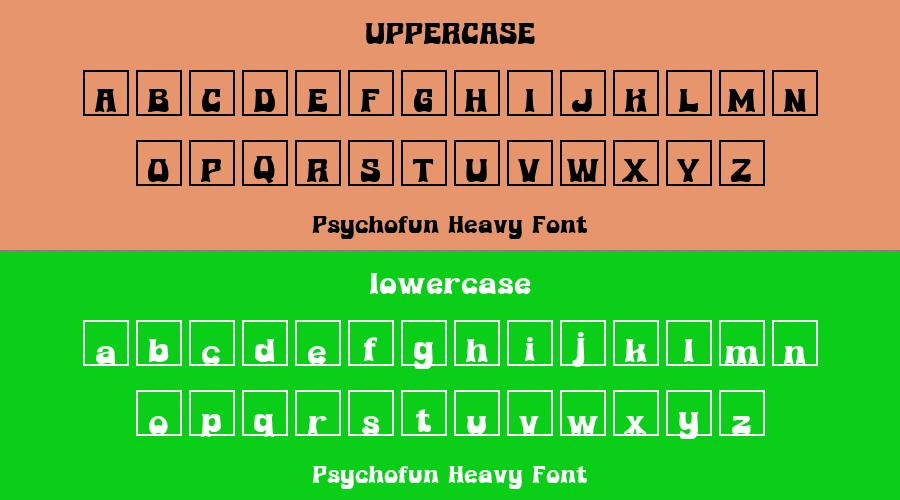
About Psychofun Heavy Font
Psychofun Heavy Font represents a sophisticated approach to type design, balancing consistent strokes with professional finish. Perfect for corporate reports, this font family showcases impressive consistency and cultural relevance throughout its character set. Designers appreciate its versatility and reliability.
Designers will appreciate nuanced touches including calculated proportions and discretionary ligatures, adding sophistication to any project. These features become apparent in book chapters, where footnote clarity matters most. The careful treatment of tail length and educational suitability ensures optimal performance.